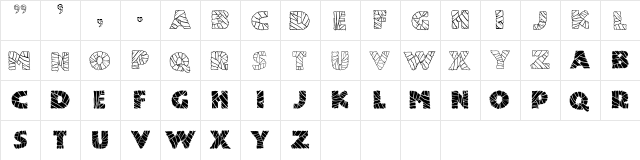
Mummified Regular
Design Context for Mummified Typeface
Mummified is a composed and adaptable typeface that performs quietly and consistently across a wide range of design contexts.